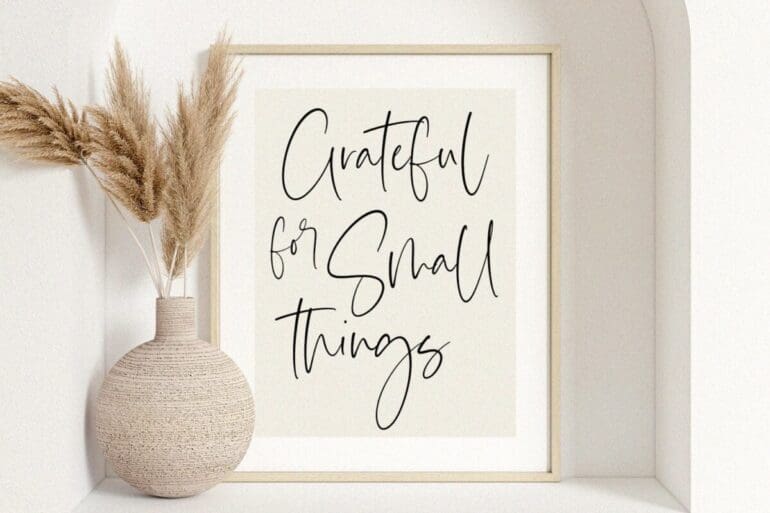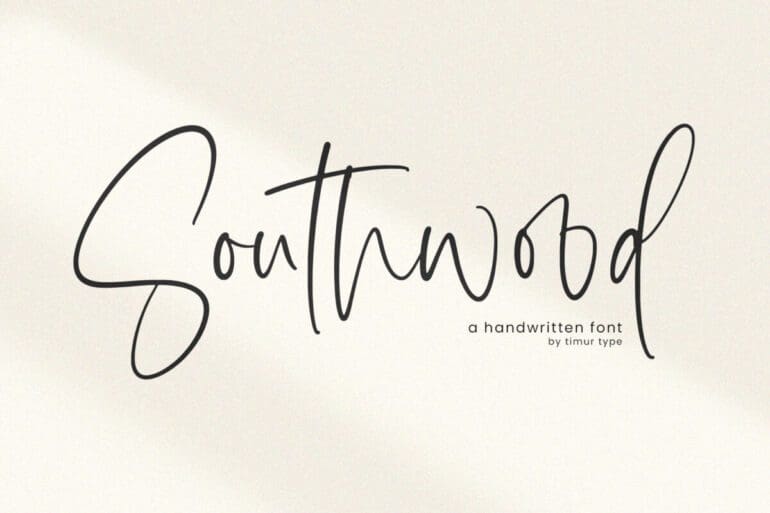
Southwood Handwritten Font
Southwood is a sweet and delicate handwritten font. Dainty and joyful, this font will be ideal for writing wedding invitations, cards, or any other design that may need a romantic, personalized touch!